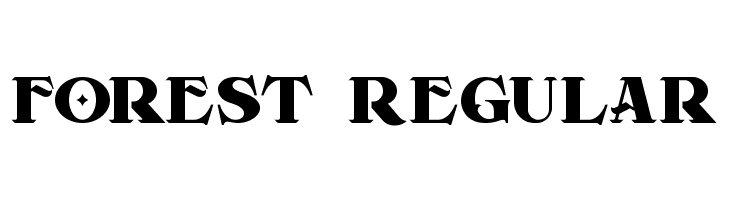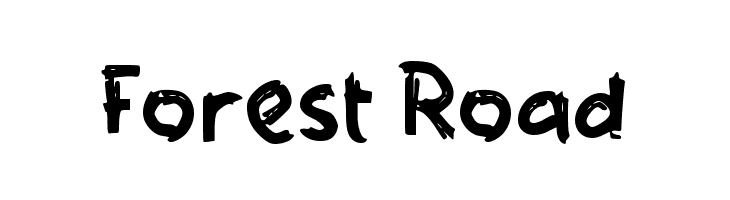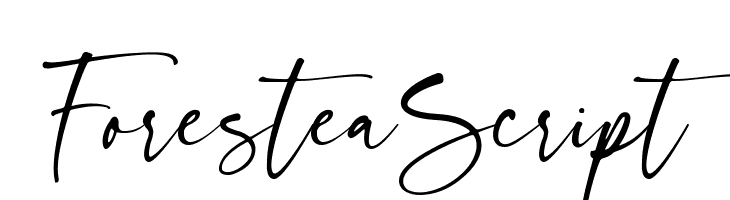
A lively script font with fluid, cursive letterforms and a casual, elegant style.
A bold, decorative font with star motifs and intricate flourishes.
An elongated, hand-drawn font with a dynamic and artistic style.
A rugged, organic font with a handcrafted, natural texture.
A playful, organic handwritten font with flowing, connected letters.
An artistic script font with elegant, flowing curves and a calligraphic style.
A bold, playful font with a spooky, hand-drawn appearance.
An organic, nature-inspired font with intricate, branch-like detailing.
A rugged, textured font with a hand-carved, organic feel.
Bold, italicized font with a distressed, vintage texture.